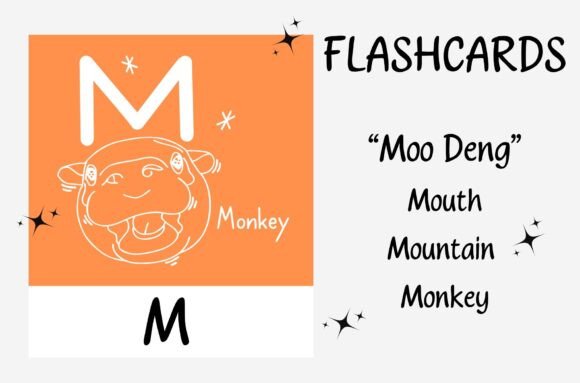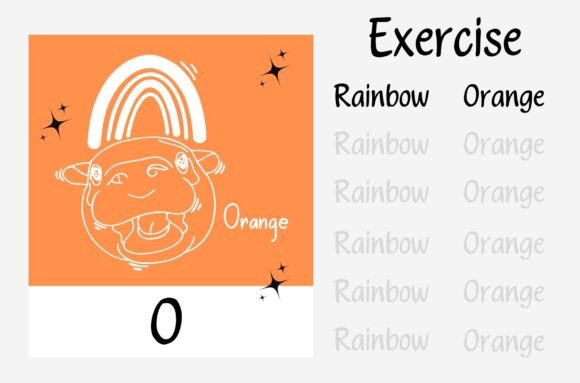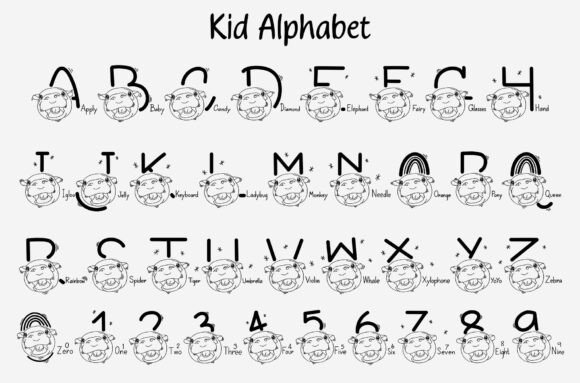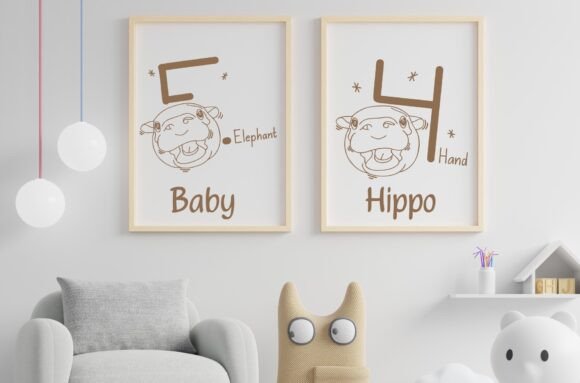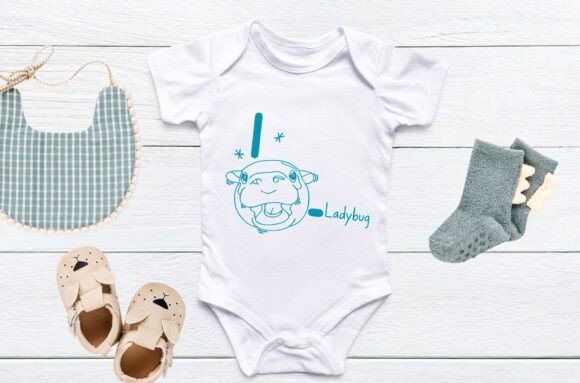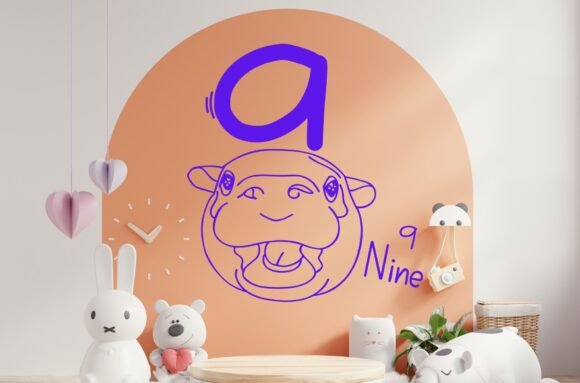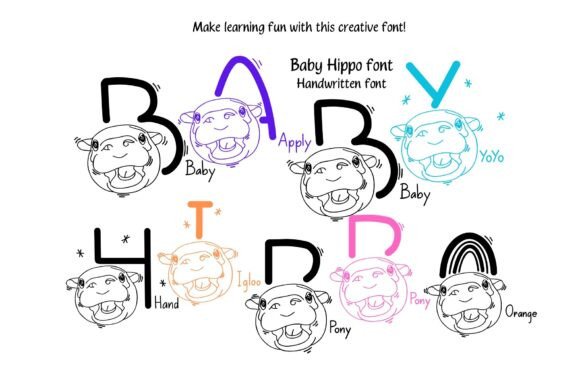
Baby Hippo Font: The Perfect Blend of Fun and Learning for Kids
Are you an educator, parent, or creative looking for a font that can bring fun and learning together for kids? Look no further than the Baby Hippo Font! This playful, hand-drawn font is specifically designed for kids’ educational materials, combining bold uppercase letters with adorable illustrations for every letter of the alphabet.
A Unique and Engaging Design
The Baby Hippo Font features a clean and engaging design that is perfect for kids’ learning materials. Each character is paired with a cute object or animal, making it an ideal choice for alphabet flashcards, preschool worksheets, kids’ activity books, and classroom decorations. The font’s playful and colorful illustrations will capture kids’ attention and imagination, making learning a fun experience.
Perfect for Educational Projects
The Baby Hippo Font is designed to make learning fun and engaging for kids. Its unique design makes it perfect for a variety of educational projects, including:
- Alphabet Flashcards: Create engaging and interactive flashcards that will help kids learn the alphabet in a fun and memorable way.
- Preschool Worksheets: Add a playful touch to your preschool worksheets and make learning a fun experience for young children.
- Kids’ Activity Books: Create activity books that are both fun and educational, with the Baby Hippo Font adding a playful touch to your content.
- Classroom Decorations: Use the Baby Hippo Font to create colorful and engaging classroom decorations that will make learning a fun experience for kids.
Why Choose the Baby Hippo Font?
There are many reasons why the Baby Hippo Font is the perfect choice for your kids’ educational projects. Here are just a few:
- Playful and Engaging: The Baby Hippo Font is designed to be playful and engaging, making learning a fun experience for kids.
- Hand-Drawn Design: The font’s hand-drawn design gives it a unique and personal touch that will make your educational materials stand out.
- Clean and Easy to Read: The font’s clean and simple design makes it easy to read, even for young children.
- Versatile: The Baby Hippo Font can be used for a variety of educational projects, from alphabet flashcards to classroom decorations.
Tips for Using the Baby Hippo Font
Here are a few tips for using the Baby Hippo Font in your educational projects:
- Pair with Images: The Baby Hippo Font is designed to be paired with images, so don’t be afraid to add illustrations and graphics to your educational materials.
- Use Bright Colors: The font’s playful design lends itself well to bright and bold colors, so don’t be afraid to get creative with your color palette.
- Experiment with Different Sizes: The Baby Hippo Font can be used at a variety of sizes, from large headings to smaller text.
The Baby Hippo Font is the perfect choice for educators, parents, and creatives looking to bring fun and learning together for kids. Its playful, hand-drawn design and adorable illustrations make it ideal for alphabet flashcards, preschool worksheets, kids’ activity books, and classroom decorations. With its clean and engaging design, the Baby Hippo Font is sure to make your educational materials both fun and engaging for kids.